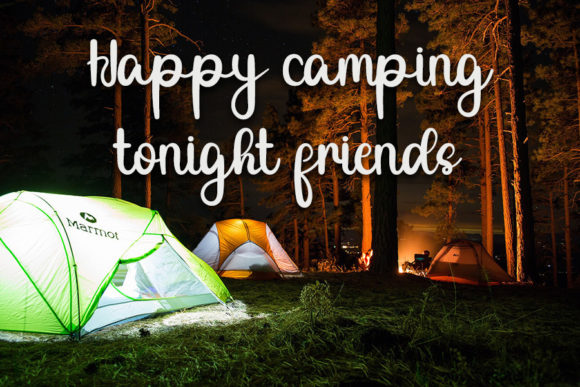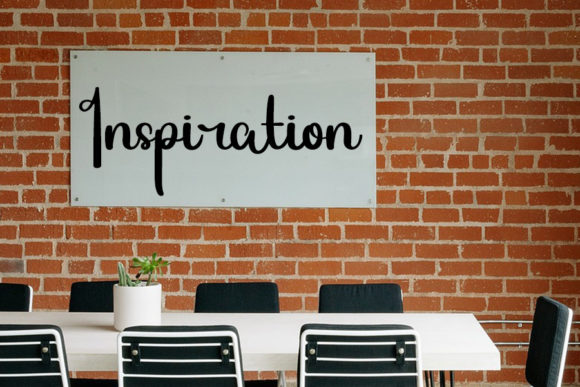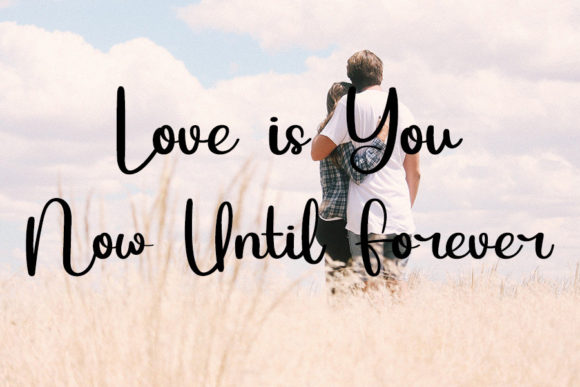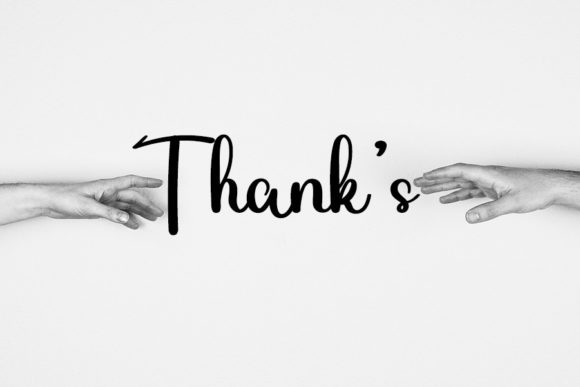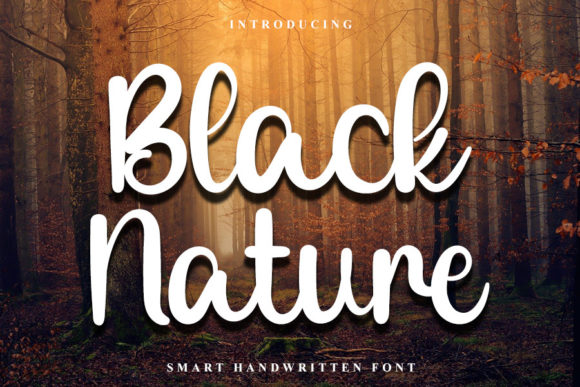
The Quest for the Perfect Font: Discovering Black Nature
Have you ever been in the middle of a design project, and suddenly, you’re stuck on finding the perfect font? I certainly have. It was a typical Wednesday afternoon when I received a call from a client who needed a logo designed for their new eco-friendly product line. The theme was nature, and I had to come up with something stylish, yet timeless. As I began to brainstorm, I realized that finding the right font was crucial to bringing the entire brand to life.
After hours of scouring through font libraries and marketplaces, I stumbled upon Black Nature, a stylish handwritten font that caught my attention. Its contemporary atmosphere and impeccable form immediately drew me in. I was excited to dive deeper and see if it was the perfect fit for my project.
An Honest Review of Black Nature
So, what do I love about Black Nature? Here are a few things that stood out:
- ✨ Balanced and varied: The font has a perfect balance of thick and thin lines, making it easy to read and visually appealing.
- ✅ Contemporary atmosphere: The font has a modern feel to it, making it perfect for projects that require a fresh and stylish look.
- 💯 Impeccable form: The font’s design is meticulous, with attention to detail that makes it stand out from other fonts.
However, no font is perfect, and Black Nature has a few quirks:
- 🤔 Limited use in small sizes: While the font looks great in larger sizes, it may not be the best choice for small text, such as body paragraphs or captions.
- ⚠️ No condensed version: The font is designed to be used in its standard form, which may not be ideal for projects that require a more compact font.
The Story Behind Black Nature
Black Nature was designed by a team of typographers who wanted to create a font that was both timeless and contemporary. Inspired by classic calligraphy, they crafted a font that was balanced, varied, and stylish. The result is a font that’s perfect for projects that require a touch of elegance and sophistication.
| What is the best use for Black Nature? | Black Nature is perfect for projects that require a stylish, handwritten font, such as logos, branding, and advertising. |
| Is Black Nature suitable for body text? | While Black Nature can be used for body text, it’s recommended to use it in larger sizes, such as headings or titles. |
| Is Black Nature available in different weights? | Currently, Black Nature is available in a single weight, but the design team is working on adding more weights in the future. |